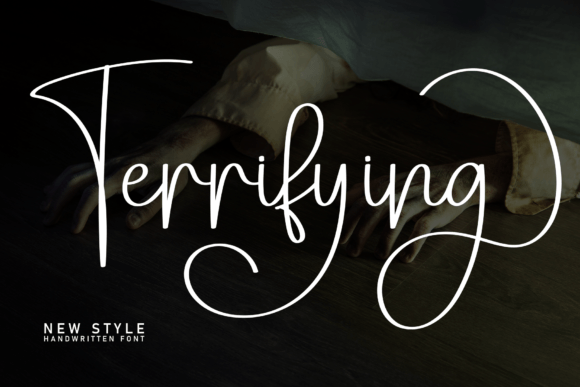
Dive into the world of elegance with Terrifying, an exquisitely crafted script font family, designed by the talented andikastudio. Prepare to be mesmerized by its beauty and timeless charm.
Terrifying is not just a font; it's an expression of art, a stroke of genius that brings your creative visions to life. With its flowing lines and captivating curves, Terrifying adds a touch of sophistication and grace to any design.
Welcome yourself to the world of weddings, where Terrifying shines as the perfect choice for vows, invitations, and all the intricate details that make your special day truly magical. Its soft curves and delicate flourishes capture the essence of love and commitment, creating a visual masterpiece that speaks volumes.
Step into the realm of branding and logos, where Terrifying takes center stage, leaving a lasting impression on your audience. Its unique and beautiful touch breathes life into your designs, making your brand stand out from the crowd.
Terrifying's versatility extends beyond weddings and branding. It's a font that captivates in quotes, social media posts, andã�‚らゆるクリエイティブã�ªãƒ—ãƒã‚¸ã‚§ã‚¯ãƒˆ. Its ability to transform ordinary words into works of art will leave your followers spellbound.
With Terrifying, you're not just downloading a font; you're embracing a world of creativity and beauty. Let your imagination run wild as you explore the endless possibilities that Terrifying offers. Its elegance and charm will elevate your designs to new heights, leaving a lasting impression on all who see it.